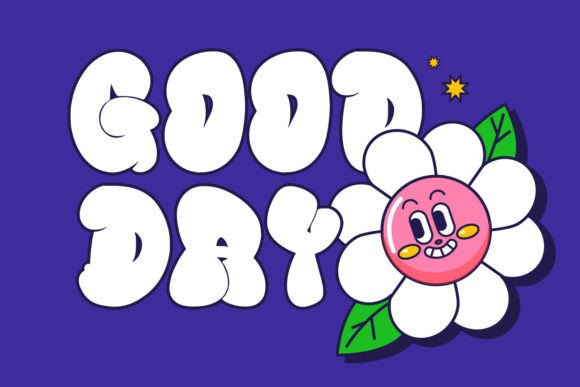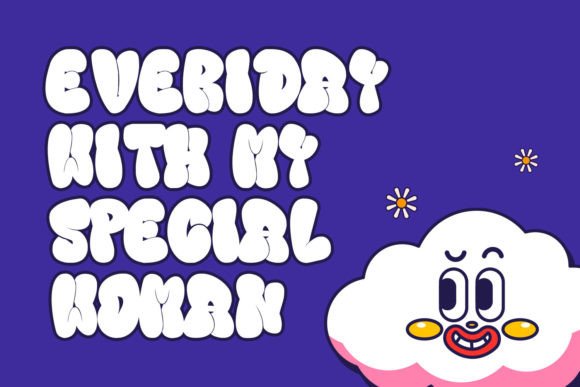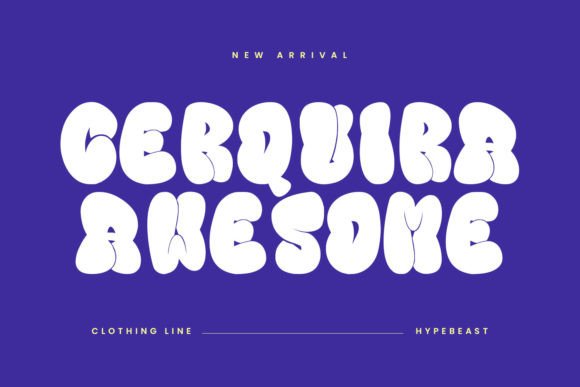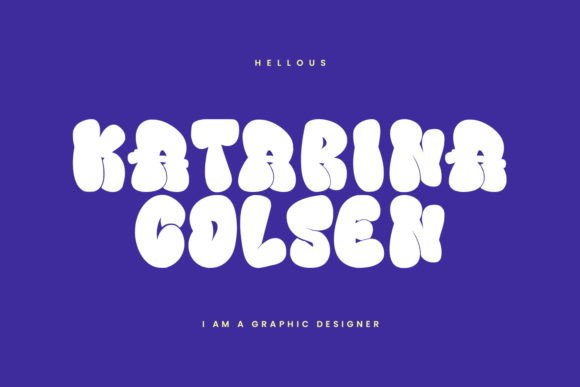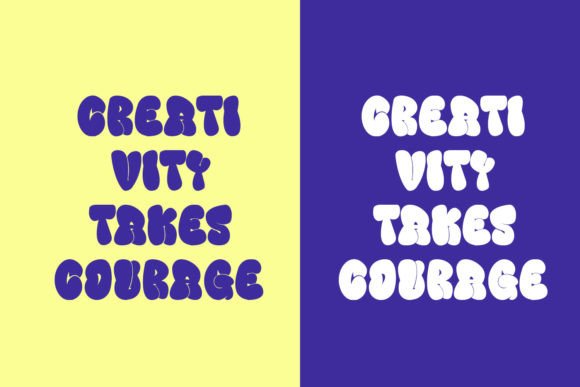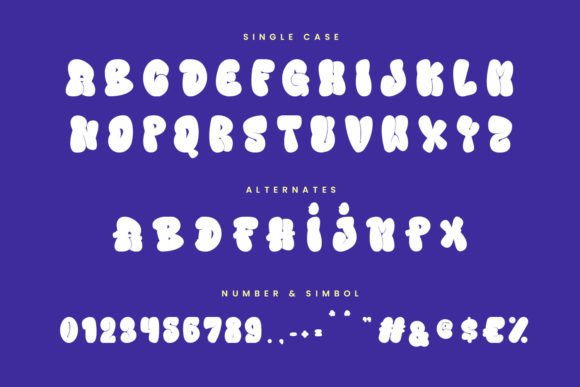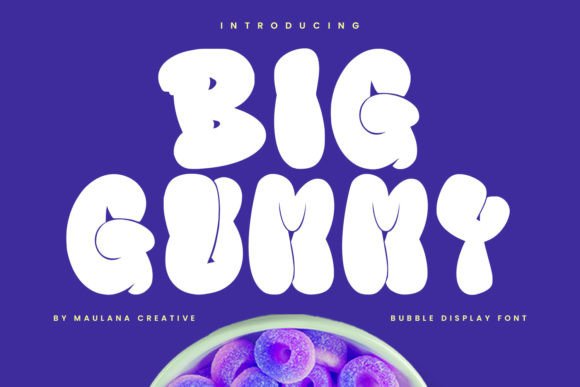
The Big Gummy Font: A Sweet Addition to Your Design Toolkit
I’ll never forget the time I was working on a party invitation design for a client’s kid’s birthday bash. I had the perfect concept in mind, but I just couldn’t find the right font to match the playful and fun vibe I was going for. That was until I stumbled upon the Big Gummy font. It was love at first sight! 😍 This cool, incredibly cute, and bubbly display font instantly elevated my design and made it truly special. In this article, I’ll share my experience with Big Gummy, its features, and how to make the most of it in your designs.
An Honest Review of Big Gummy
• ✨ The font’s playful and youthful vibe makes it perfect for designs that require a touch of fun and joy.
• 💕 The font’s bubbly and cute personality makes it ideal for party invitations, event posters, and other celebratory designs.
While Big Gummy is an amazing font, there are a few things to keep in mind:
• ⚠️ As a display font, Big Gummy works best at larger font sizes. It may not be suitable for body text or smaller font sizes.
• 🤔 Some users may find the font’s playful personality too bold or overpowering for certain designs.
The Designer Inspiration Behind Big Gummy
Big Gummy was designed with one goal in mind: to create a font that’s fun, playful, and youthful. The designer behind Big Gummy wanted to create a font that would make designers and crafters feel like kids again. With its bubbly and cute personality, Big Gummy is perfect for designs that require a touch of joy and whimsy.
Q: What is Big Gummy font?
Big Gummy is a cool, incredibly cute, and bubbly display font that’s perfect for designs that require a touch of youth and joy.